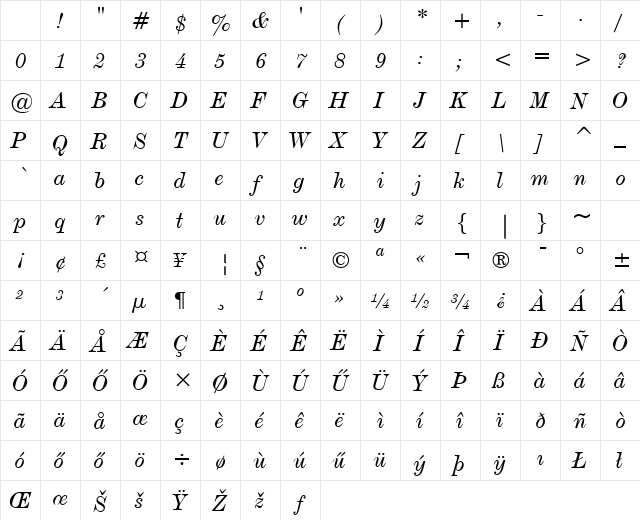
Complete De-Vinne TxHU Italic Text glyph index. Displaying only characters natively supported by De-Vinne TxHU Italic Text font.
De-Vinne TxHU is a composed and adaptable typeface that performs quietly and consistently across a wide range of design contexts. The slanted form adds forward momentum and visual energy.
Pro Tip: Use De-Vinne TxHU for emphasis, pull quotes, and subheadings where its slanted energy can add rhythm to the layout.